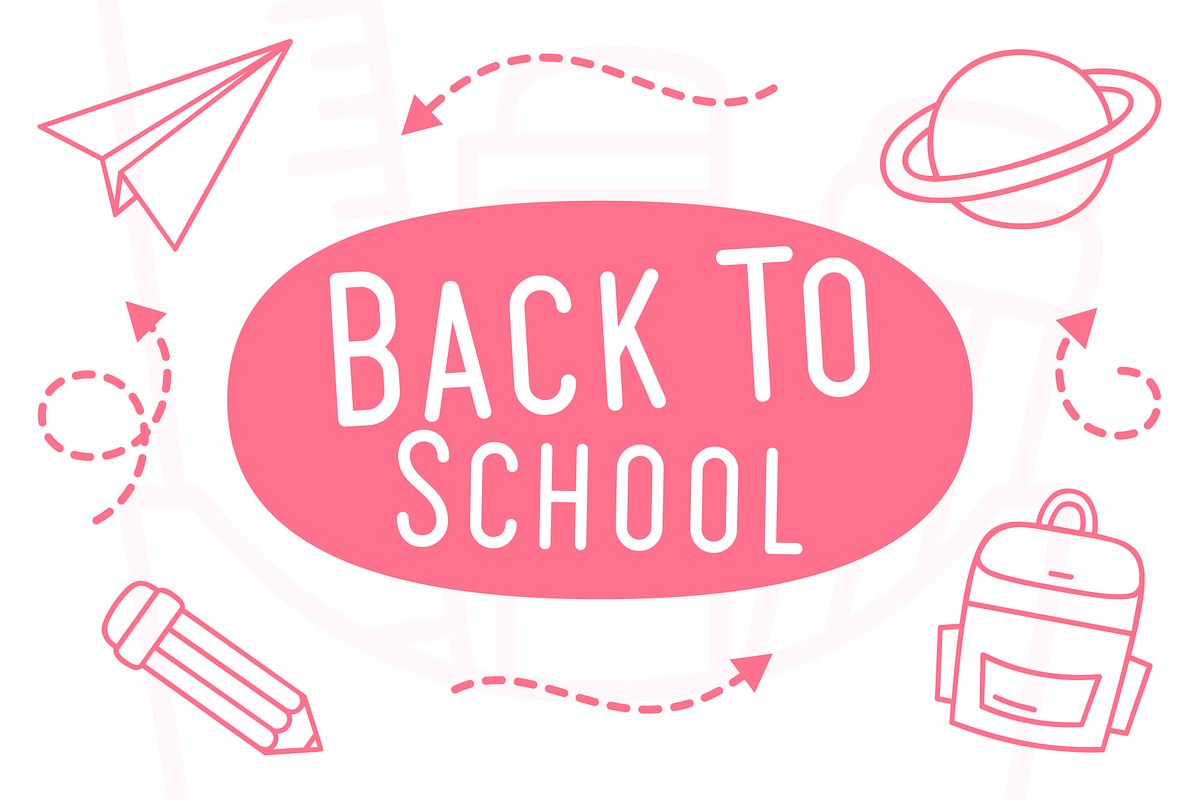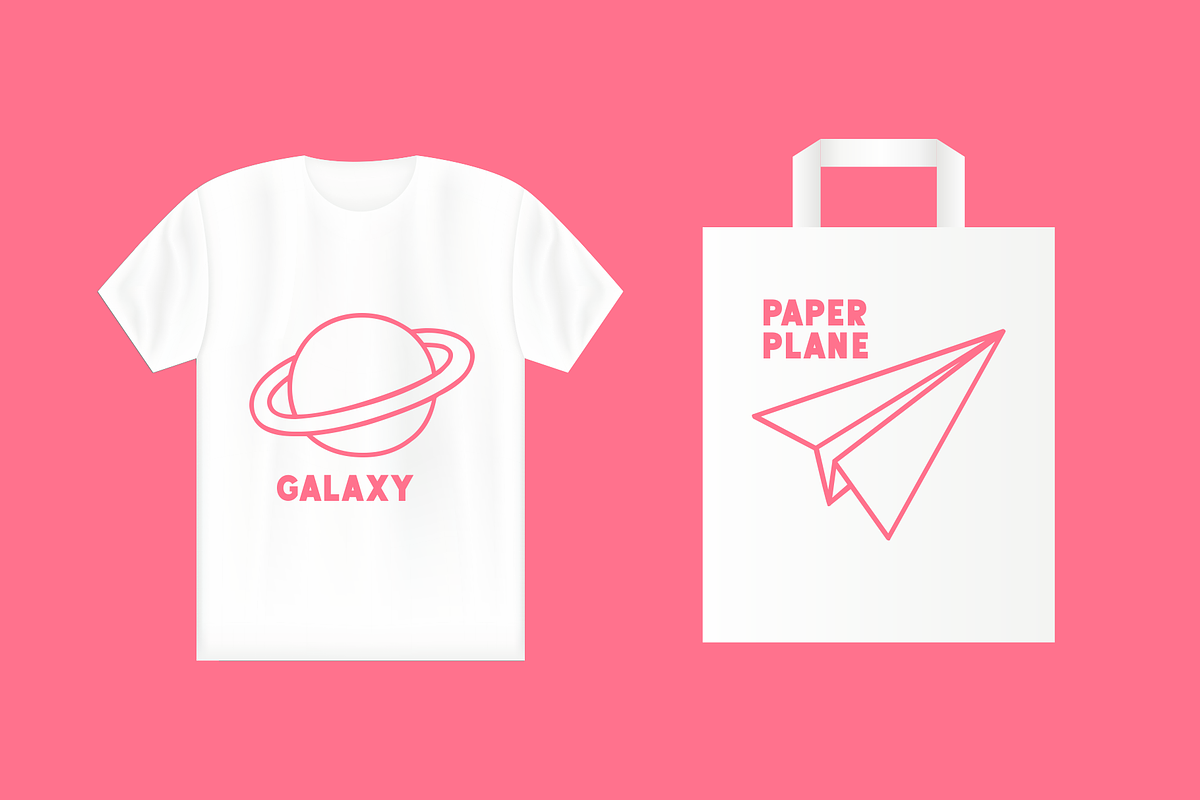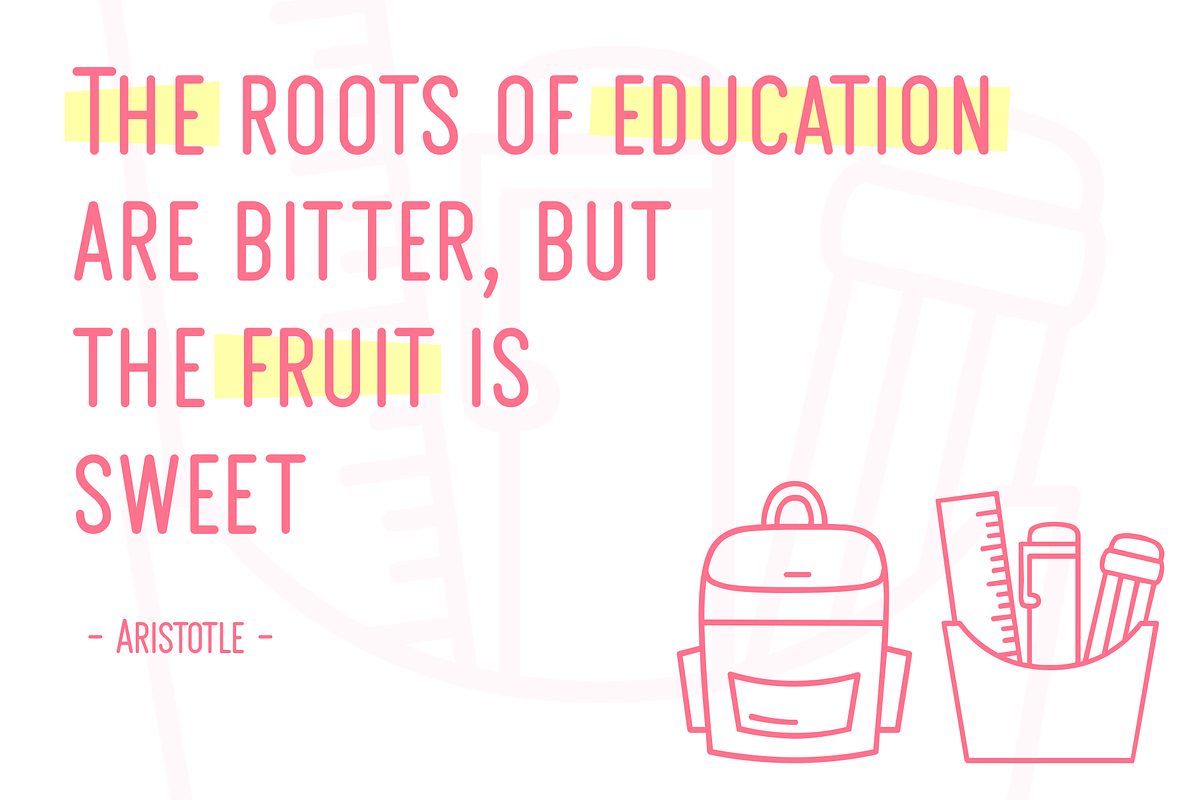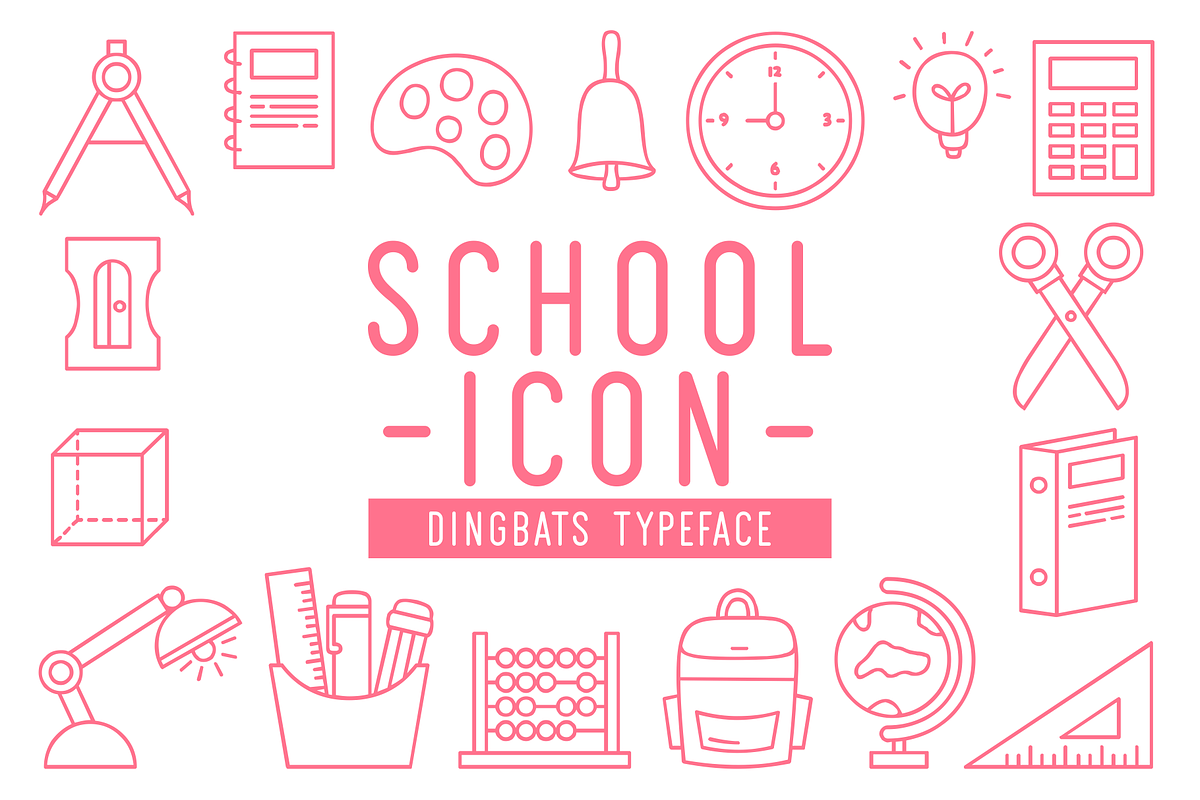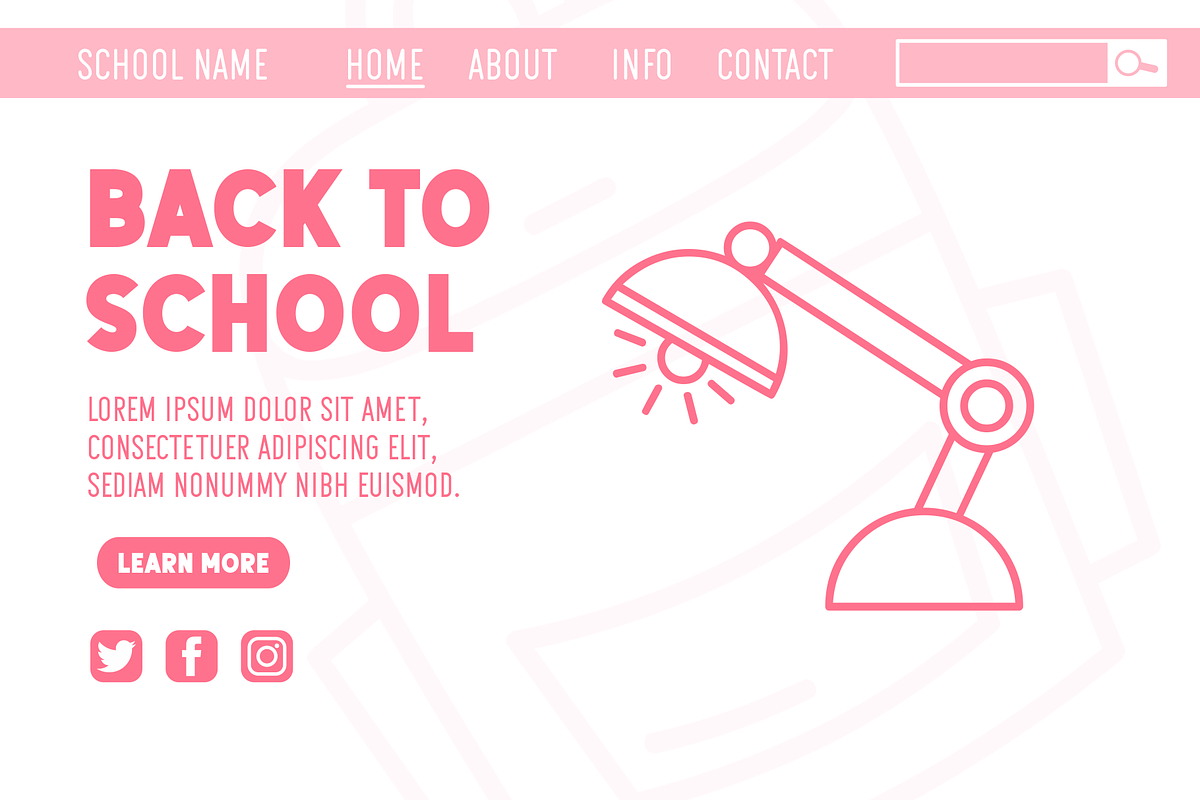
School Icon
Say Hello to School Icon! is a cool and useful dingbats font. It can easily be matched to an incredibly large set of projects, so add it to your creative ideas and notice how it makes them stand out!